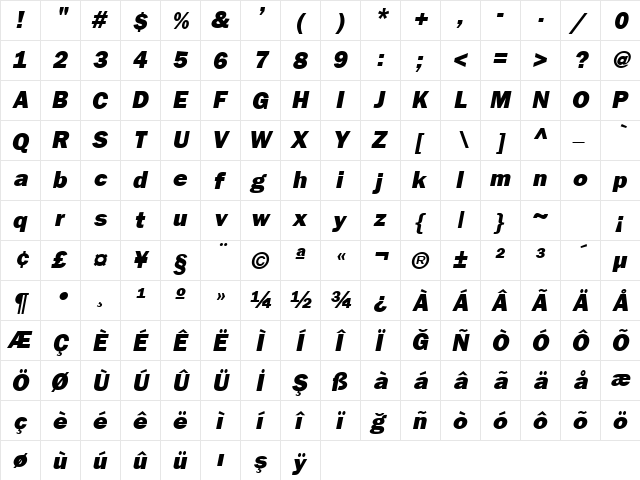
TR FrankfurtGothicHeavy Italic
Design Context for TR FrankfurtGothicHeavy Typeface
TR FrankfurtGothicHeavy takes a clean, functional approach — its unadorned letterforms prioritise legibility and work reliably across screen and print environments. Its italic angle brings a sense of urgency and motion to the letterforms.
Font Pairing: Works well alongside a characterful serif or display font that can carry the expressive load while TR FrankfurtGothicHeavy handles the functional copy.
Pro Tip: Use TR FrankfurtGothicHeavy for UI labels, navigation, and short-form body copy where clean legibility is the priority.